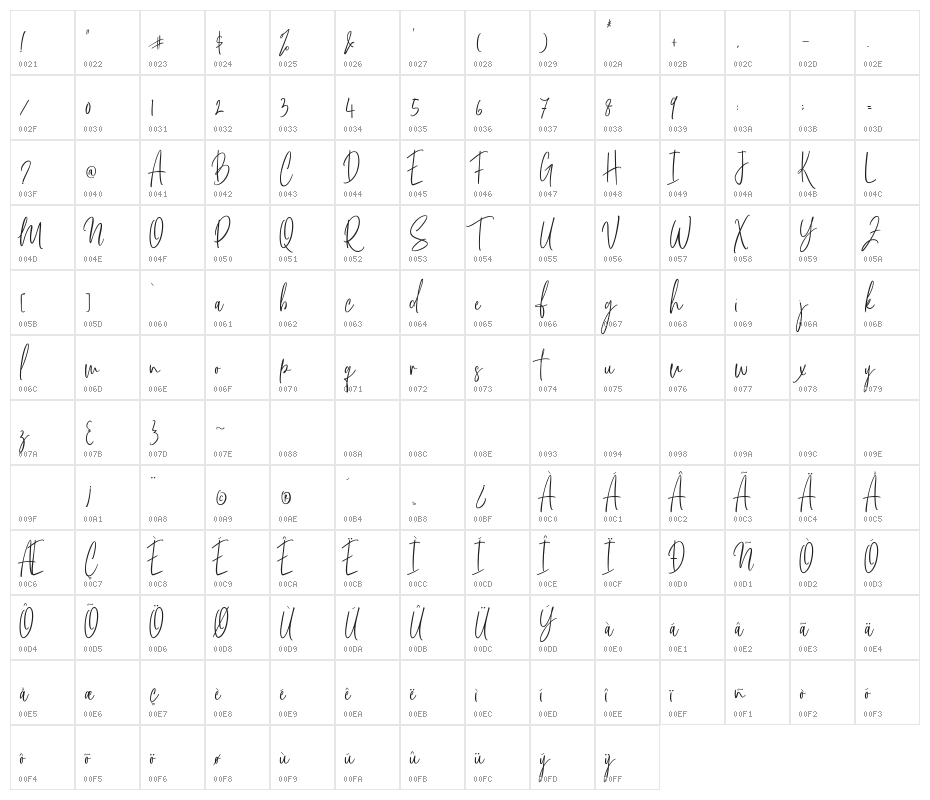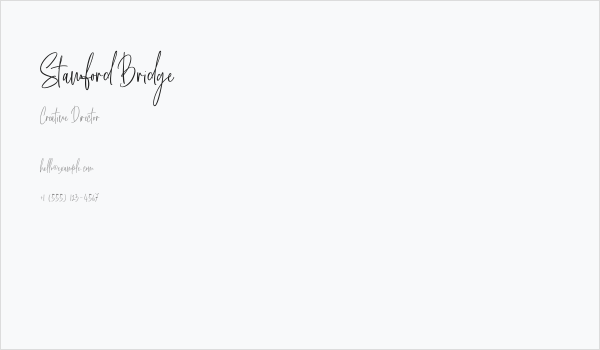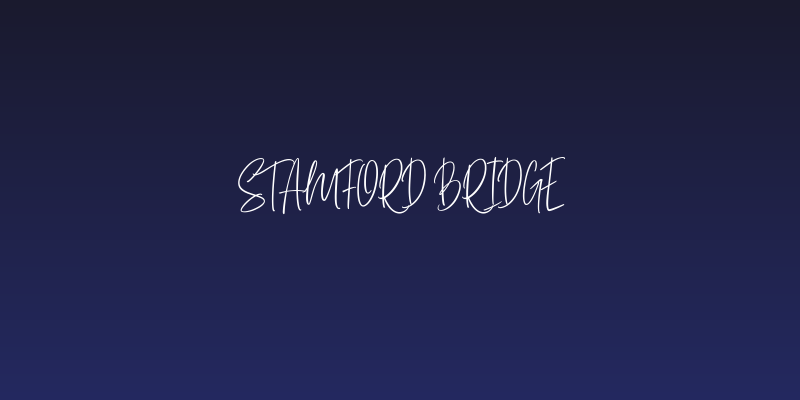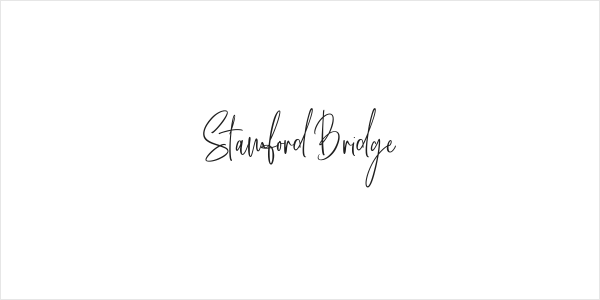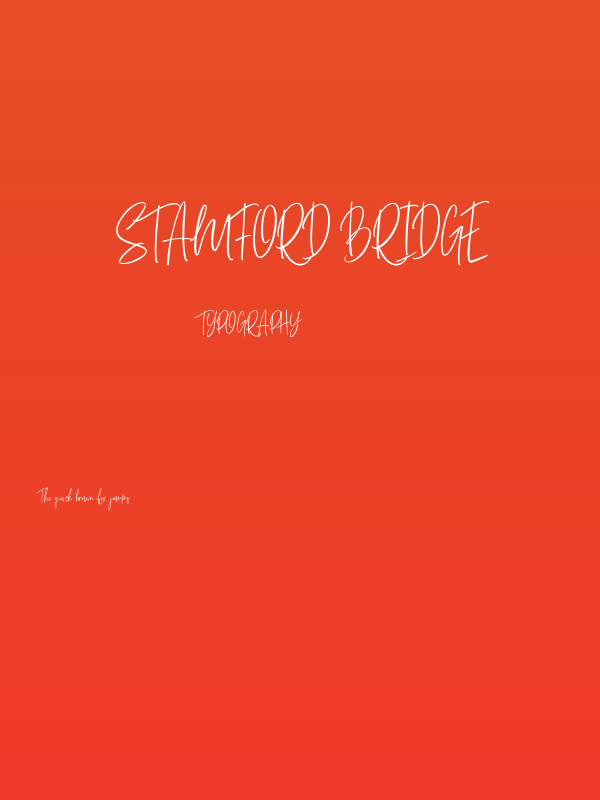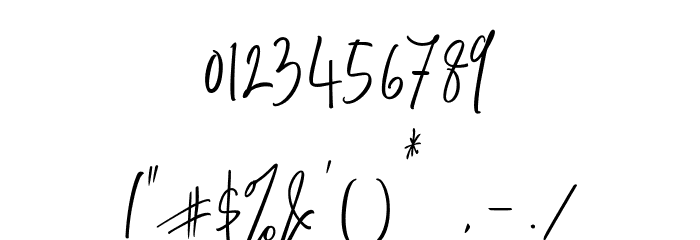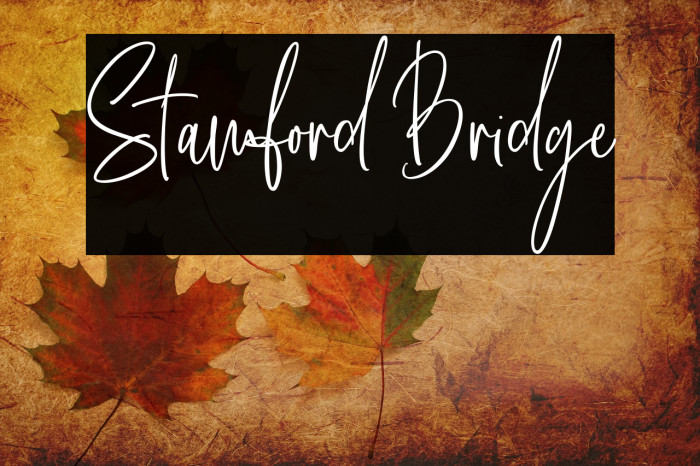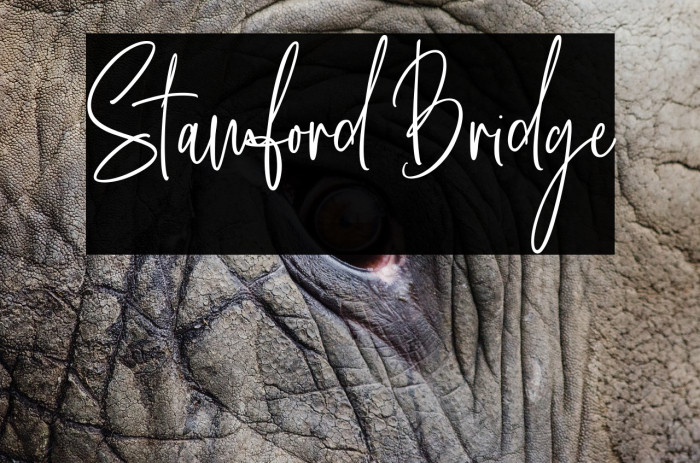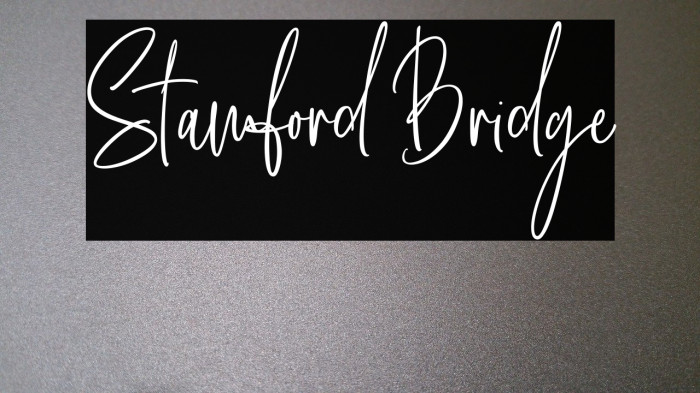
Stamford Bridge Font
Stamford Bridge Description
This font features a lively and dynamic handwritten style, characterized by its flowing and interconnected letterforms. The uppercase letters exhibit a tall and slender appearance, while the lowercase letters maintain a consistent fluidity, enhancing the overall elegance. The numerals and special characters are crafted with the same attention to detail, ensuring a cohesive look across all glyphs. The strokes are smooth and slightly varied in thickness, adding a touch of personality and warmth. This font is perfect for projects that require a personal and approachable feel, such as invitations, greeting cards, or branding materials.